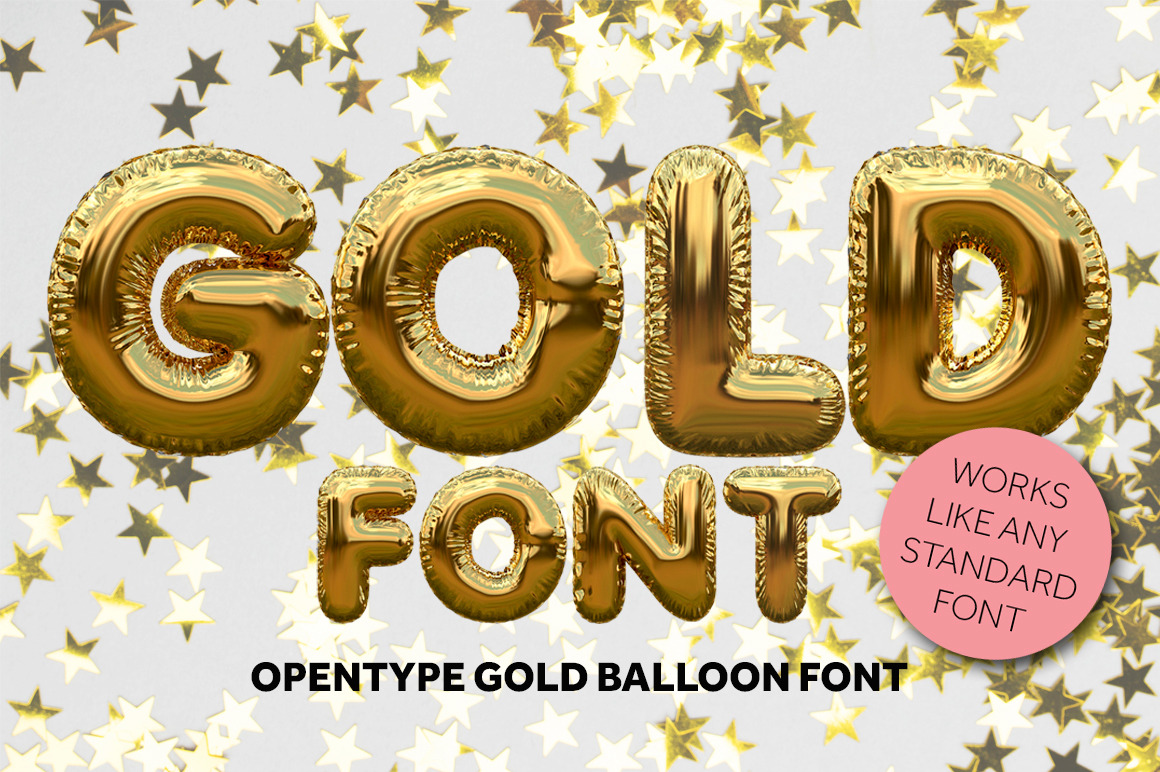
Gold foil balloon font
GOLD FOIL
Gold foil is a colour OTF font. Each letter has been created in 3D then turned into a simple to use font. Just download and start typing in beautiful gold balloon lettering. Its perfect for creating stunning invitations and posters!